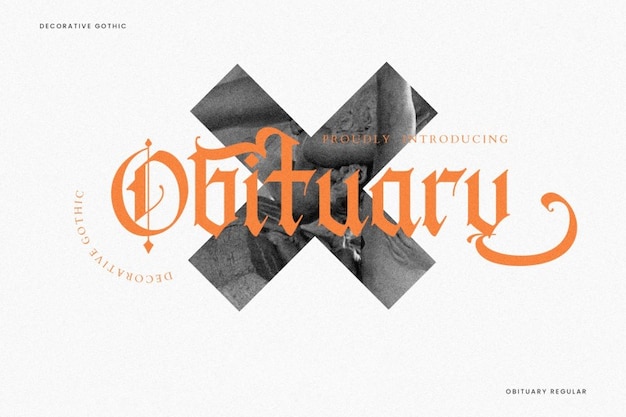
Obituary Font
Creatype Studio
Gothic in essence, Obituary font carries an aura of decorative elegance from the old world. Each letter is a testament to intricate design, reminiscent of historical craftsmanship. With its gothic charm, it summons an atmosphere of antiquity, preserving a sense of ornate beauty and vintage allure within its typographic strokes.